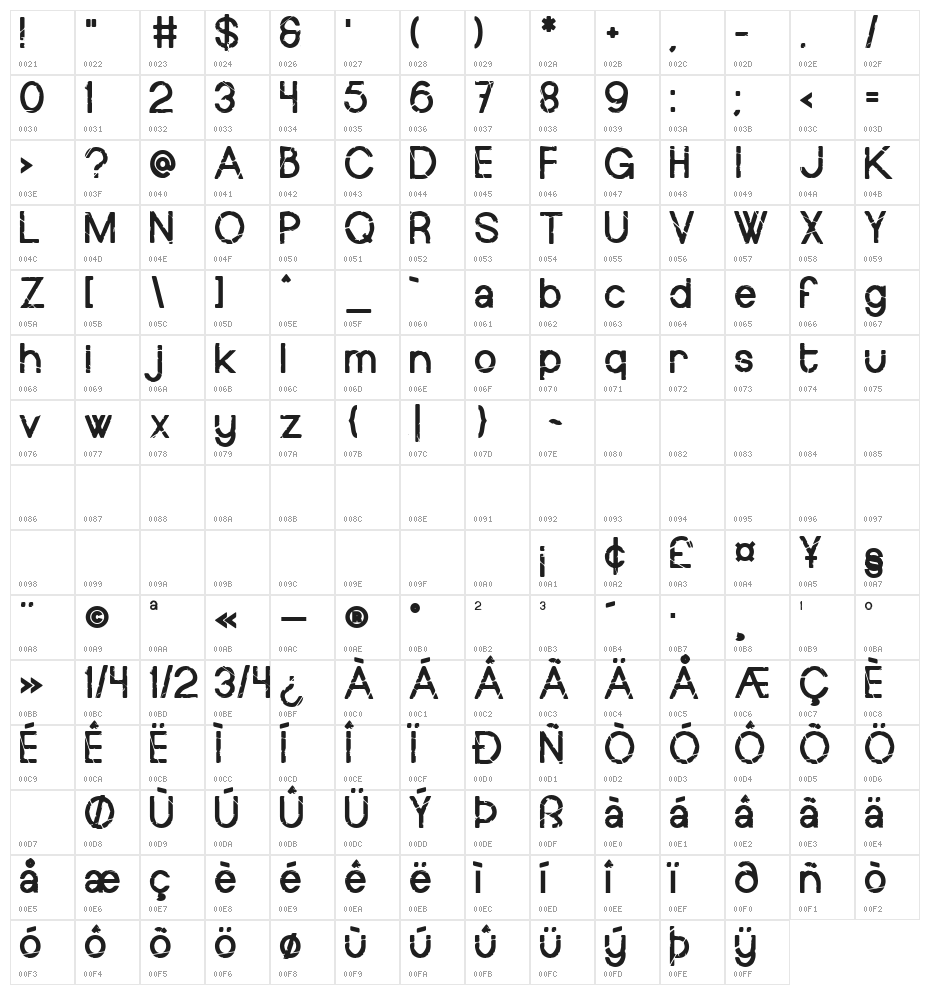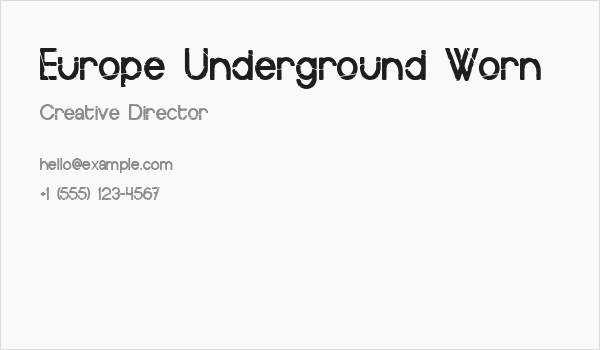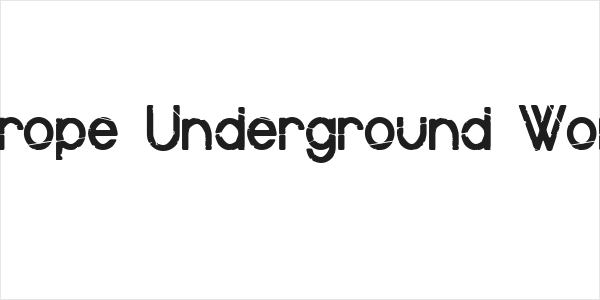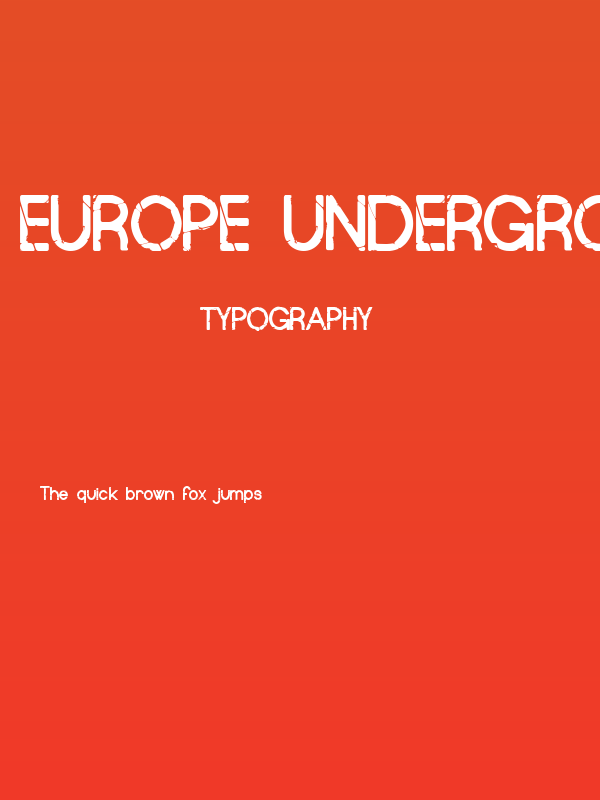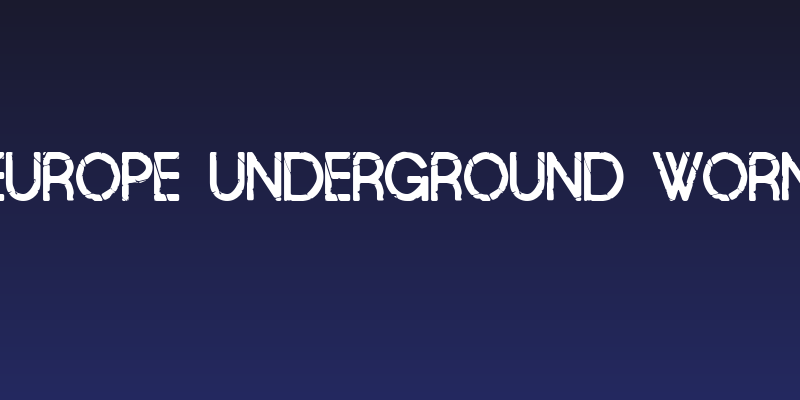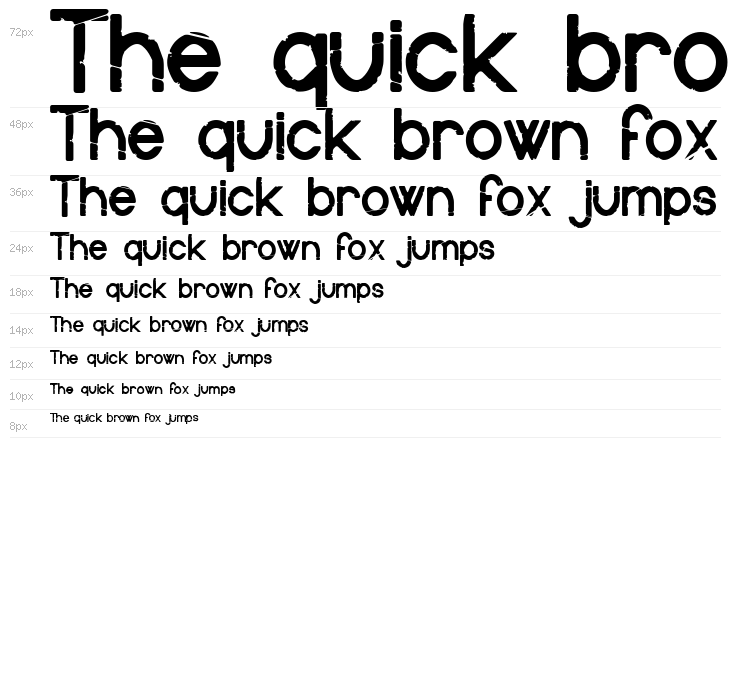
Europe Underground Worn Font
Europe Underground Worn Description
This font features a distressed, worn-out appearance, giving it a rugged and vintage feel. The characters are bold and sans-serif, with a consistent thickness throughout. The design incorporates a grunge effect, with parts of the letters appearing chipped or eroded, adding to its underground aesthetic. The uppercase and lowercase letters maintain a uniform style, while the numbers and special characters follow the same distressed theme. This font is ideal for projects that require a raw, edgy look, such as music album covers, posters, or urban-themed designs.
| Proposed Projects | Ideal for music album covers, posters, urban-themed designs, and any project needing a raw, edgy look. |